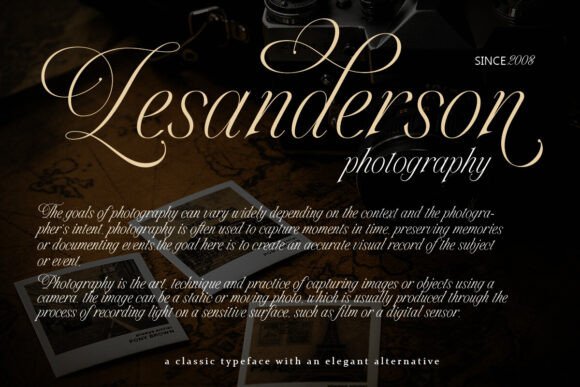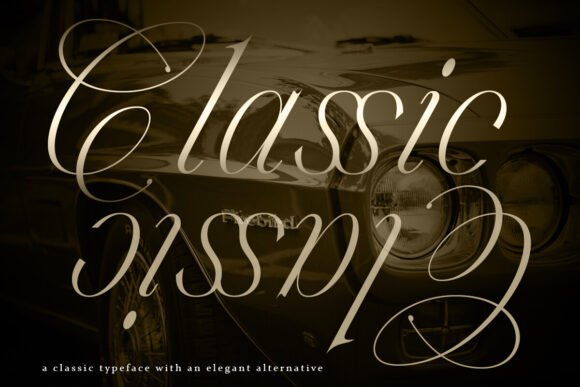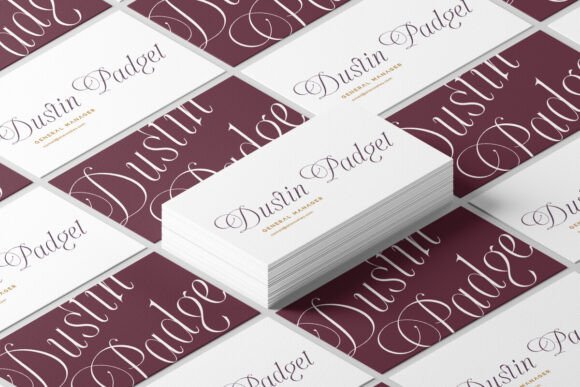
Introduction to Elegantia Font
Elegantia is a refined script typeface that exudes timeless sophistication and effortless charm.
With its graceful curves and fluid, hand-lettered style, this font captures the essence of elegance, making it perfect for high-end branding, luxurious invitations, and artistic designs The delicate yet confident strokes of Elegantia blend classic calligraphy with modern flair, creating a striking balance between tradition and contemporary beauty.
Key Features of Elegantia Font
Why Choose Elegantia Font?